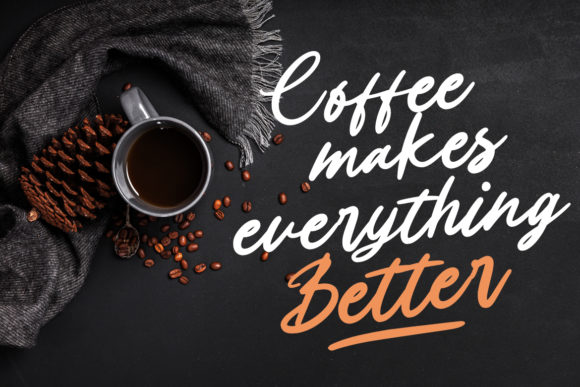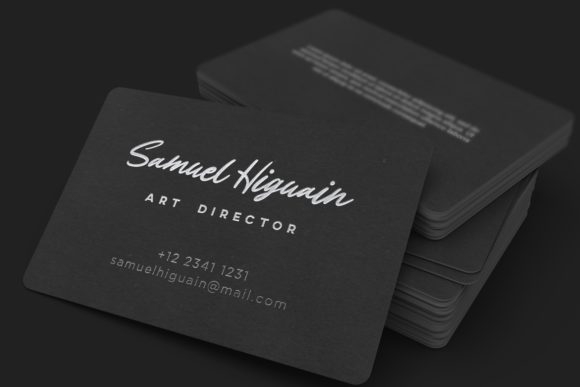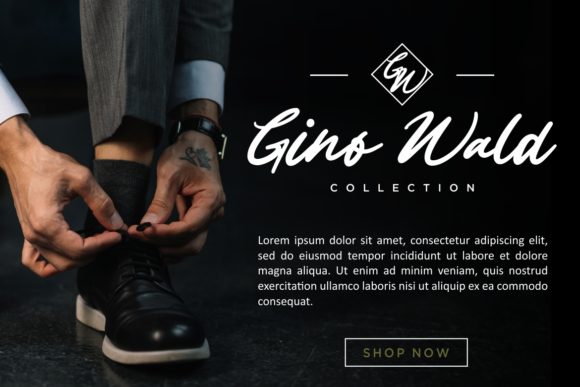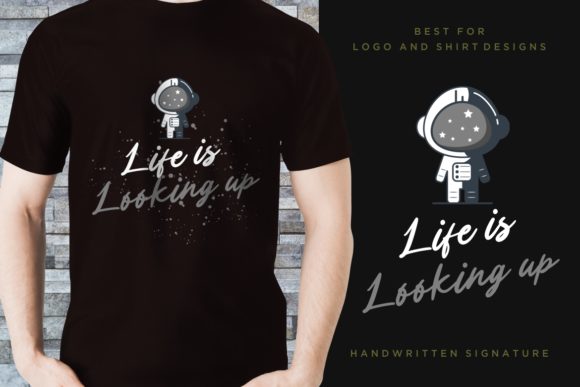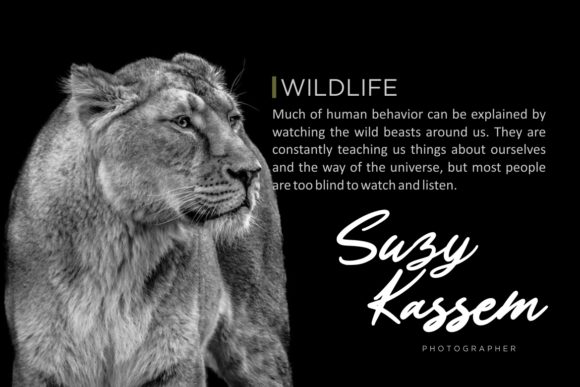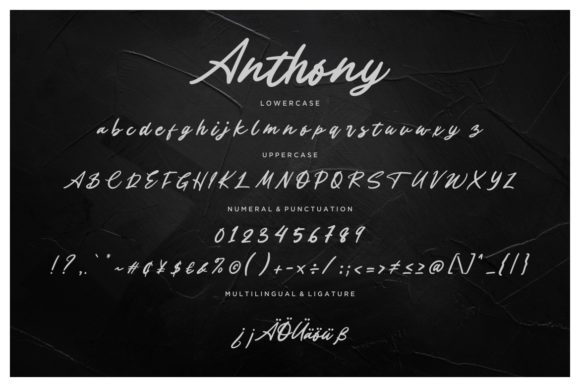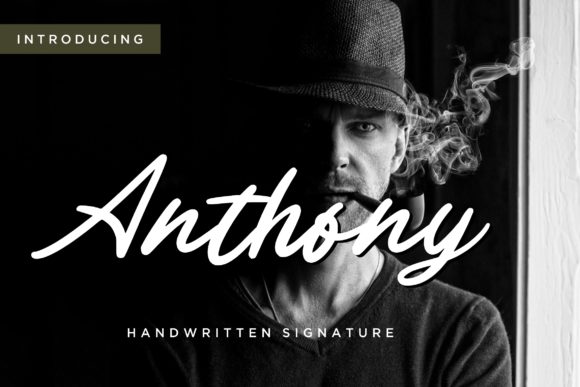
Discover the Elegance of Anthony Font: A Magical Handwritten Script
Are you on the hunt for a font that adds a touch of magic to your designs? Look no further than Anthony Font, a beautiful, flowing handwritten script that is sure to elevate your typography to new heights. With its well-balanced details and elegant flow, Anthony Font is the perfect choice for designers and crafters looking to add a touch of sophistication to their work.
What Makes Anthony Font So Special?
Anthony Font is a truly unique and special font that stands out from the crowd. Its magical, flowing script is reminiscent of traditional handwriting, yet it has a modern and fresh feel that is sure to capture the attention of your audience. The font’s well-balanced details make it look outstanding in any context, whether it’s being used on busy backgrounds or as a standalone headline.
Key Features of Anthony Font
- Magical and Flowing Script: Anthony Font features a beautiful, flowing script that is perfect for adding a touch of elegance to your designs.
- Well-Balanced Details: The font’s well-balanced details make it look outstanding in any context, ensuring that your designs always look polished and professional.
- Versatile: Anthony Font is incredibly versatile and can be used in a wide range of design applications, from headings and titles to body text and more.
- Easy to Read: Despite its elegant and flowing script, Anthony Font is easy to read, making it perfect for use in both digital and print designs.
Anthony Font is a dream come true for designers and crafters looking to add a touch of magic to their work. Whether you’re creating a new brand identity, designing a website, or crafting a beautiful piece of art, Anthony Font is the perfect choice. Its unique and elegant script is sure to capture the attention of your audience and leave a lasting impression.
How to Use Anthony Font in Your Designs
Using Anthony Font in your designs is easy and straightforward. Here are a few tips to get you started:
- Use it as a Headline: Anthony Font is perfect for use as a headline or title font. Its elegant and flowing script is sure to capture the attention of your audience and add a touch of sophistication to your designs.
- Pair it with Other Fonts: Anthony Font pairs perfectly with other fonts, making it easy to create a unique and visually appealing typography scheme.
- Experiment with Different Colors: Anthony Font looks great in a wide range of colors, so don’t be afraid to experiment and find the perfect color scheme for your design.
In conclusion, Anthony Font is a truly special and magical handwritten script that is sure to elevate your designs to new heights. With its well-balanced details, elegant flow, and versatility, Anthony Font is the perfect choice for designers and crafters looking to add a touch of sophistication to their work. So why wait? Give Anthony Font a try today and discover the magic for yourself!